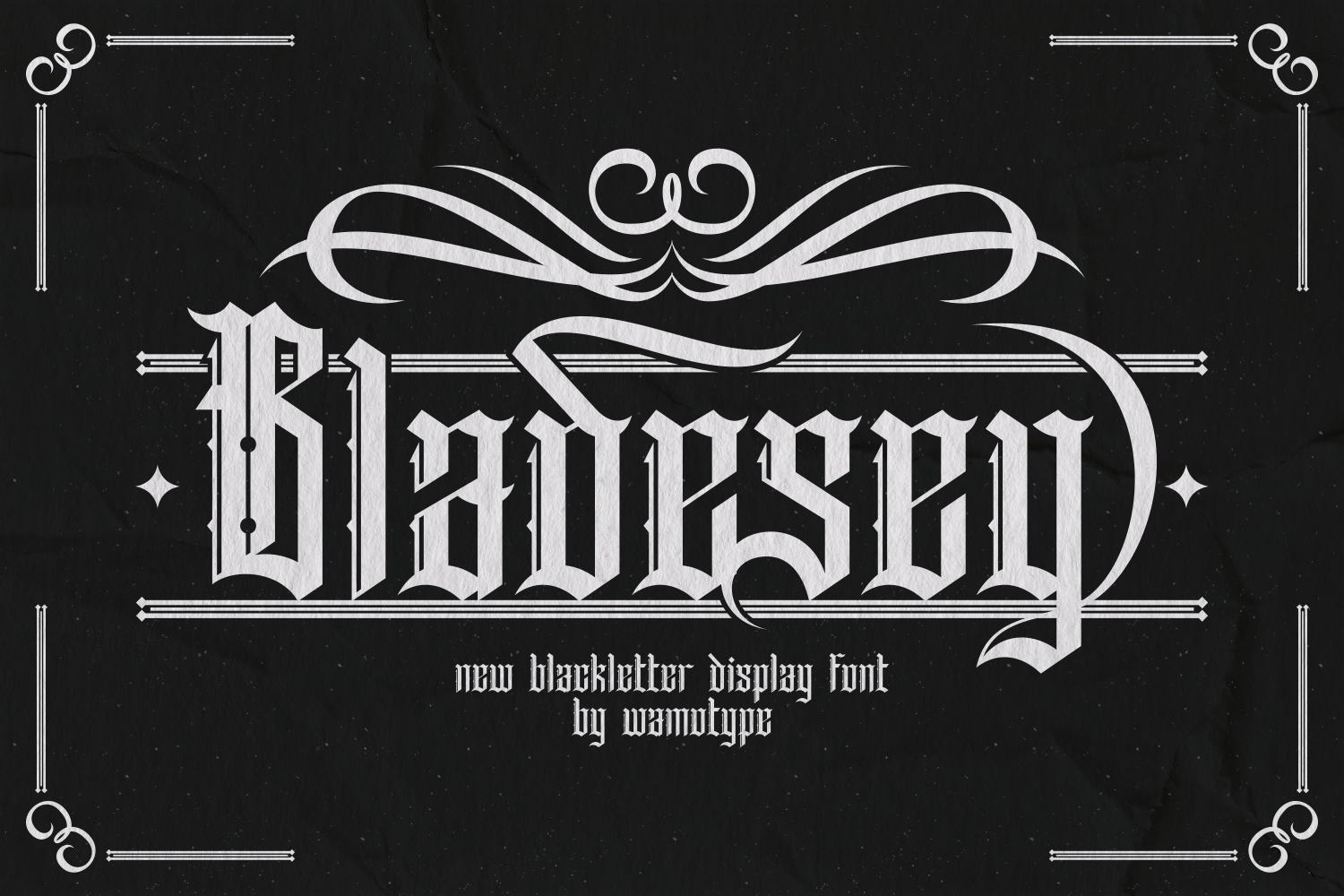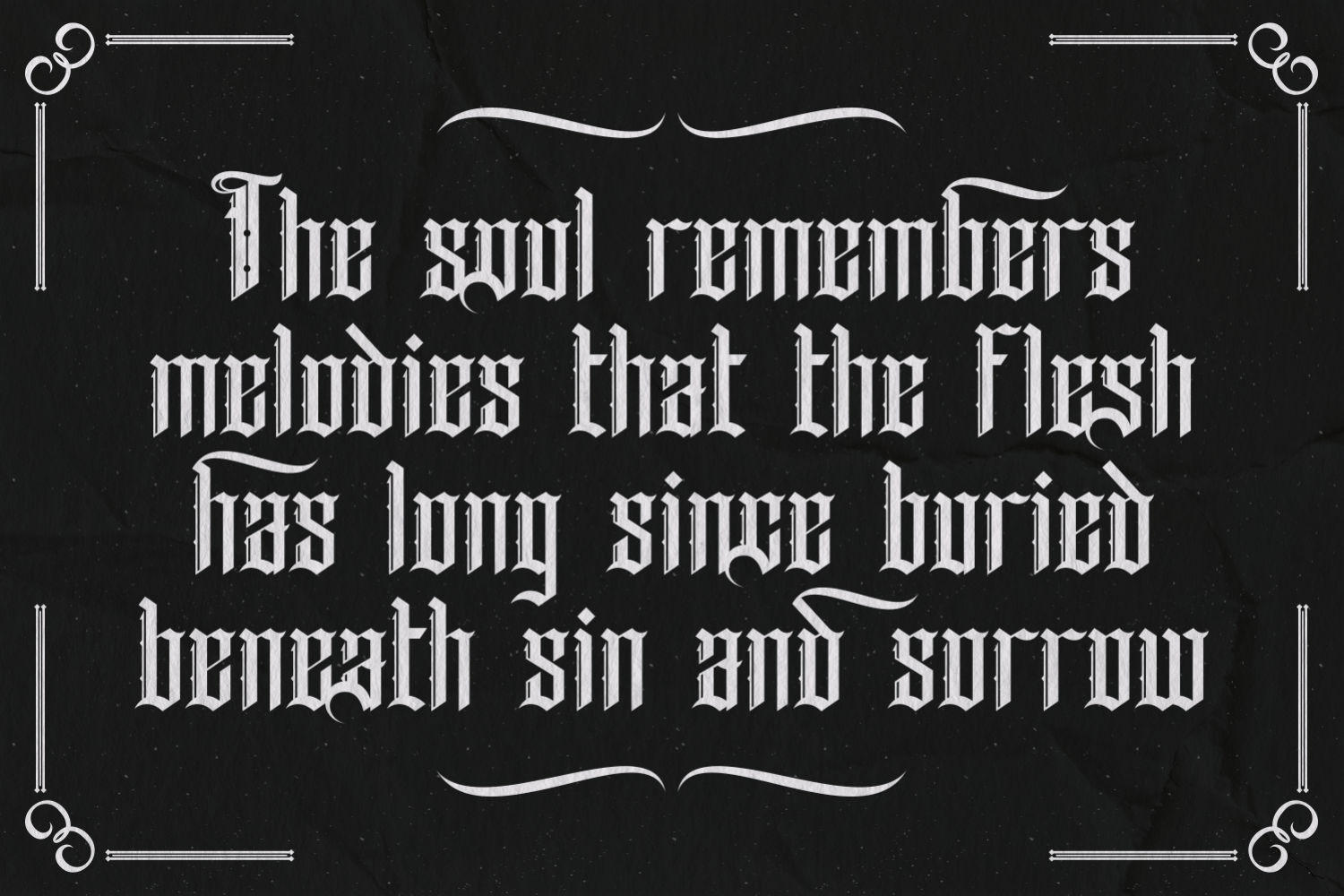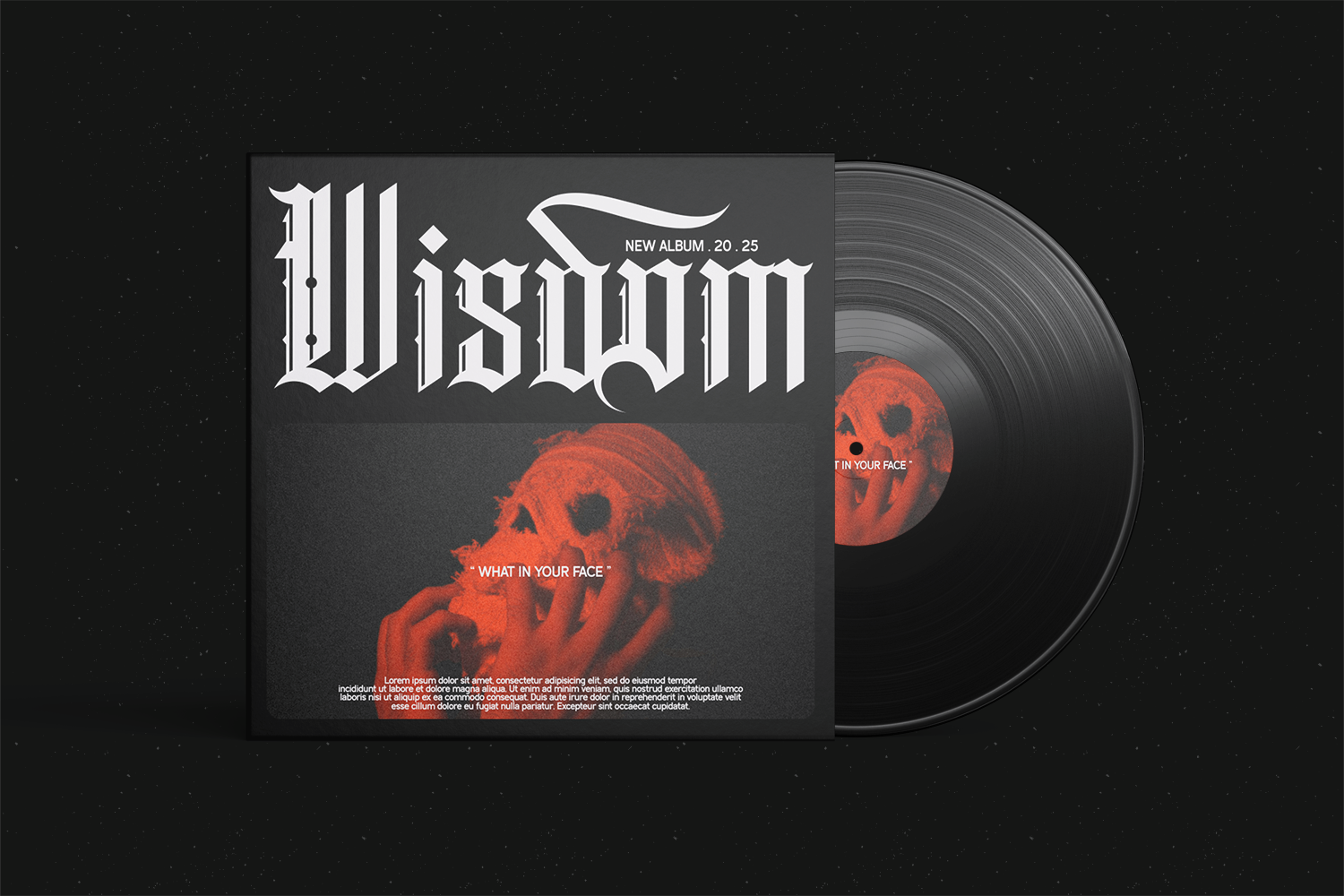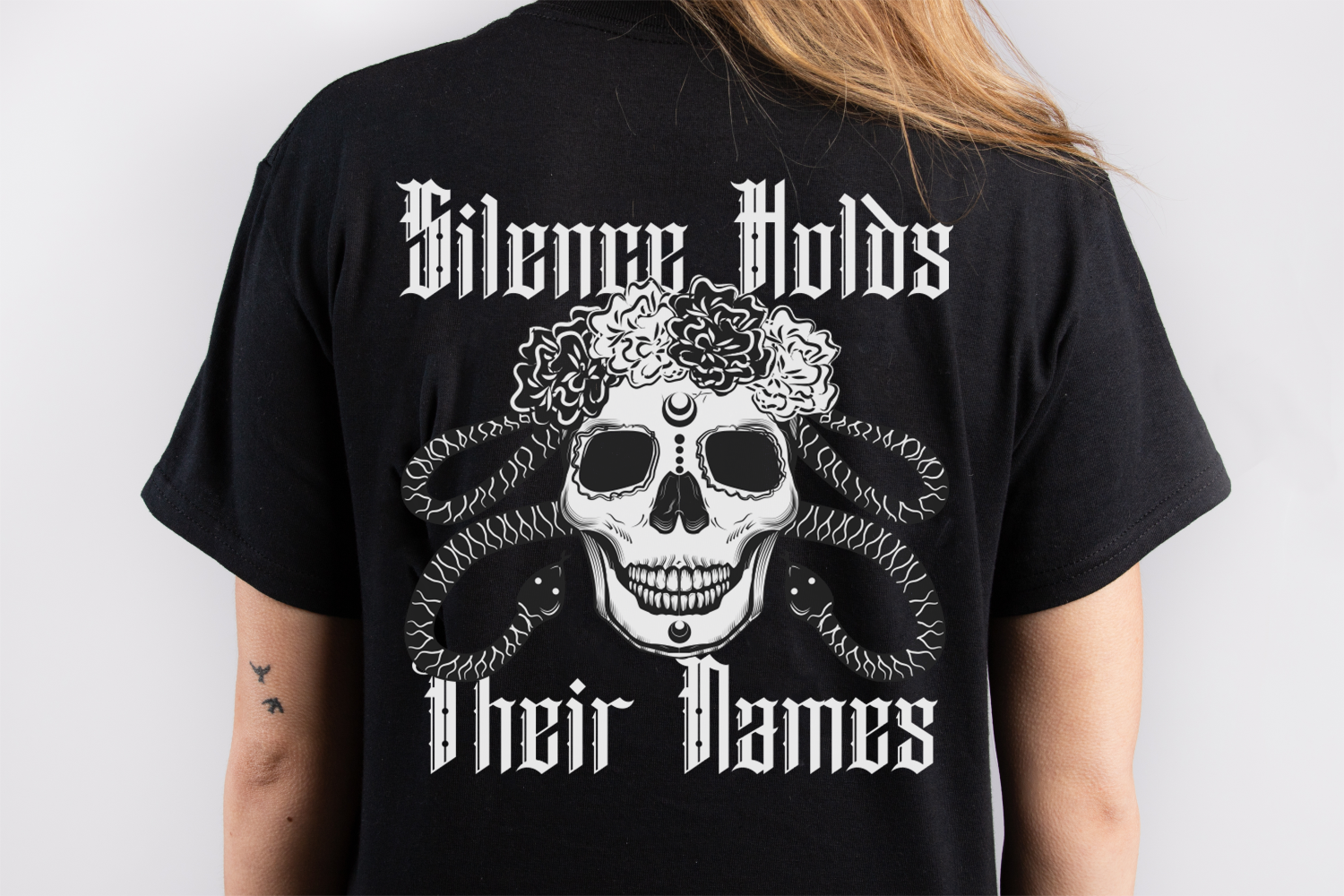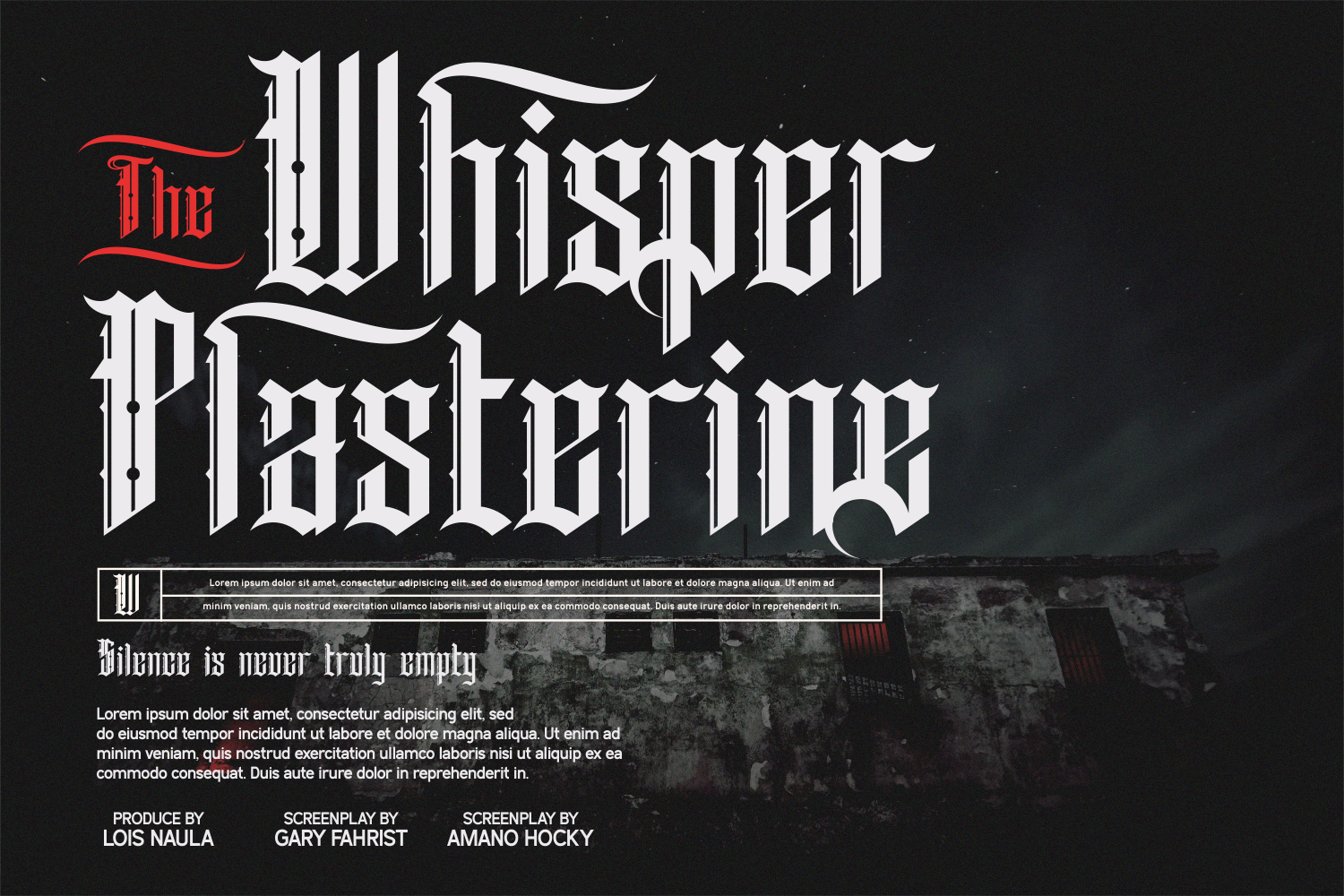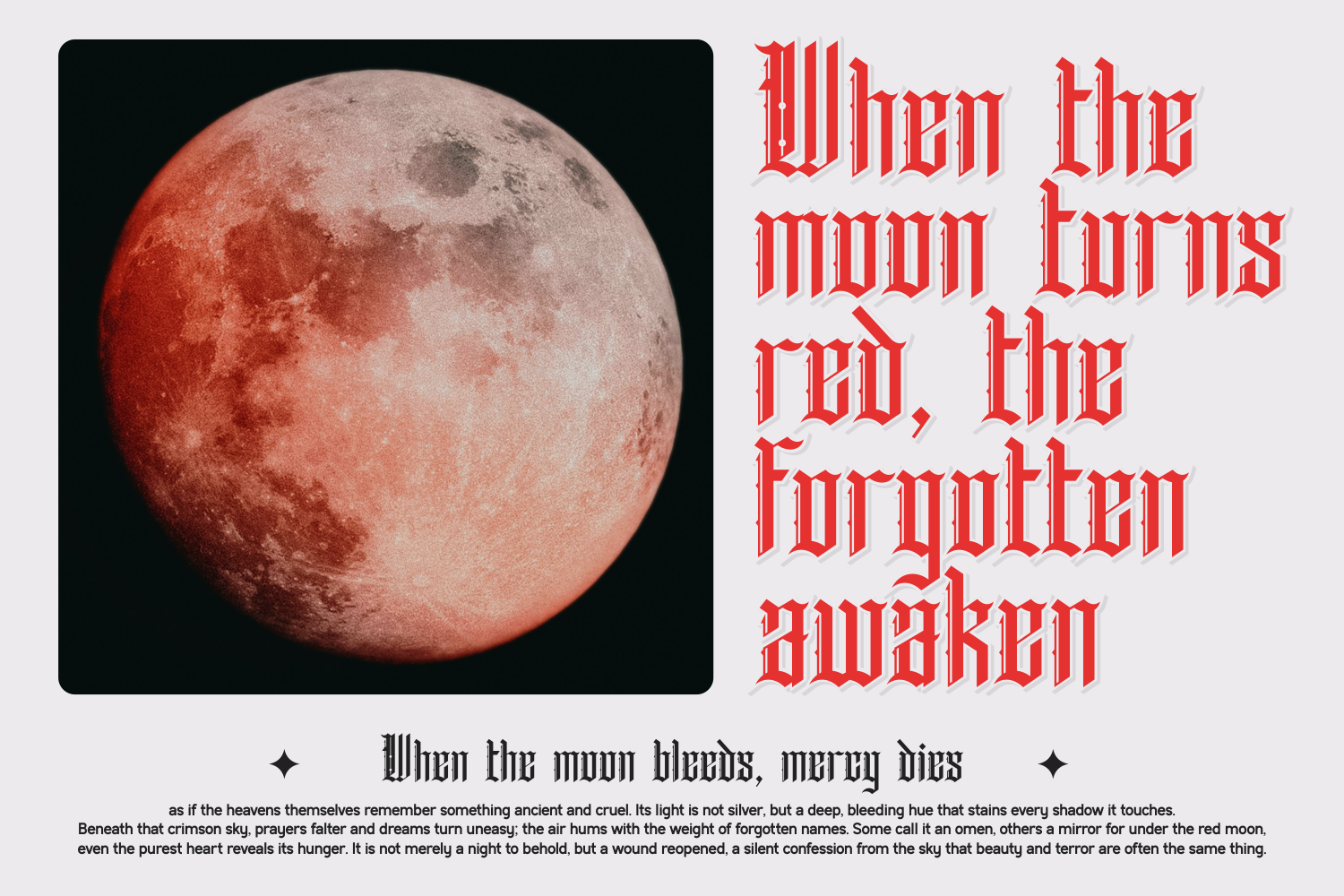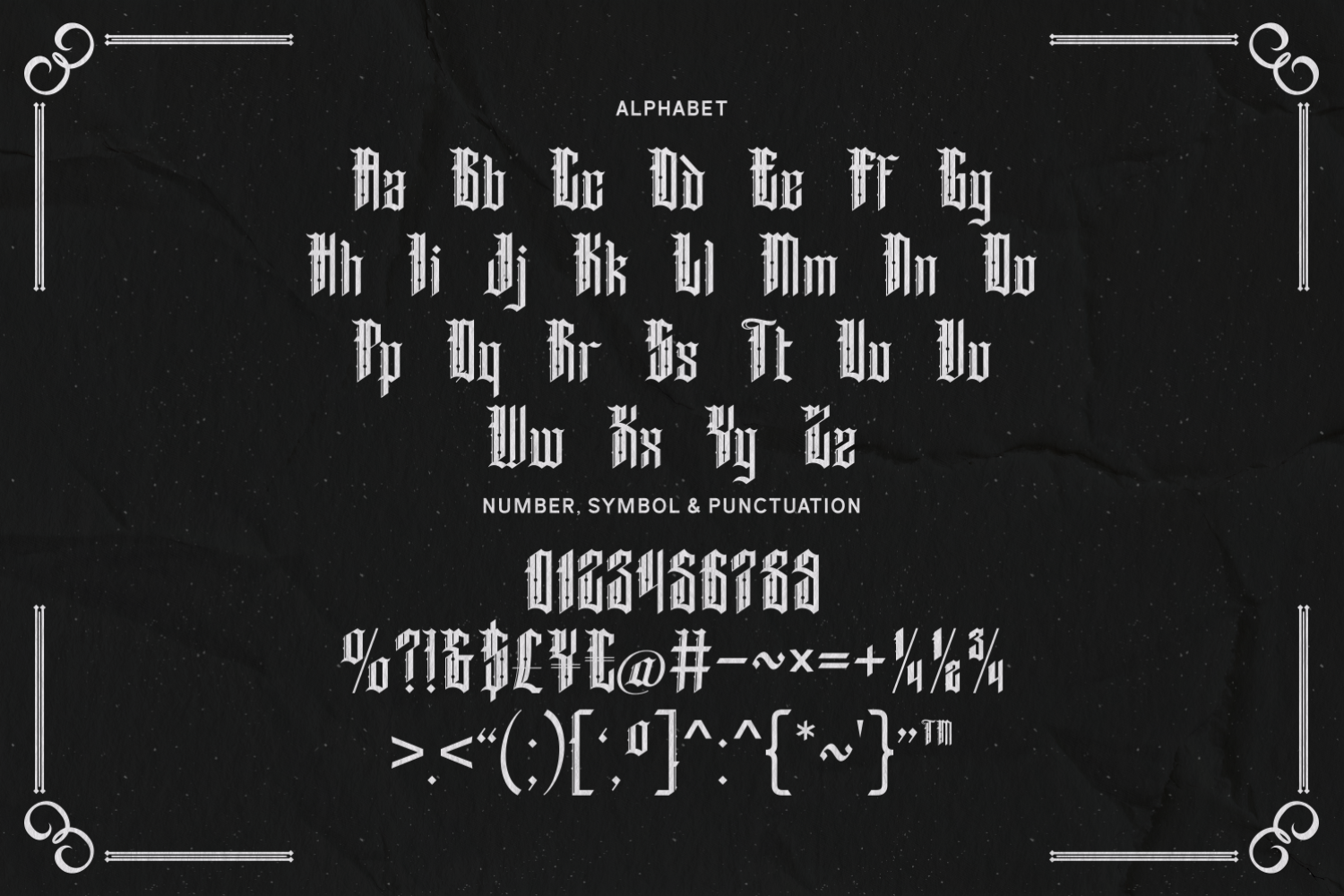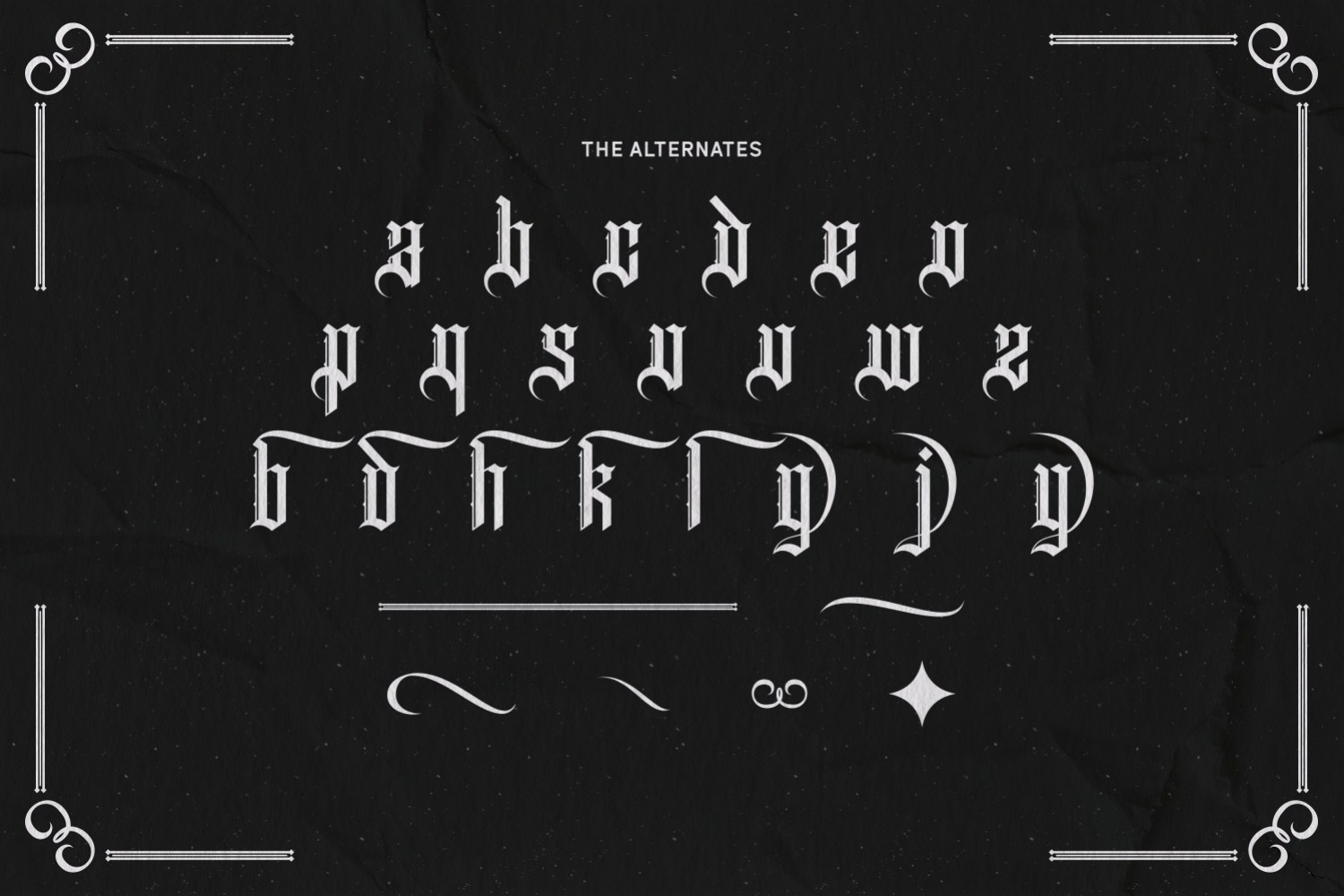
Bladesey – Blackletter Display Font
Introducing Bladesey – Blackletter Display Font
Bladesey is a decorative blackletter display font with Gothic details like split stems, pointed tips, small inner dots, and sweep-like extensions on certain letters. This font gives off a dark, medieval, and metal-inspired feel.
- Uppercase and lowercase letters
- Numbers and punctuation
- Latin multilingual support
- OpenType stylistic alternates
- Decorative alternate characters